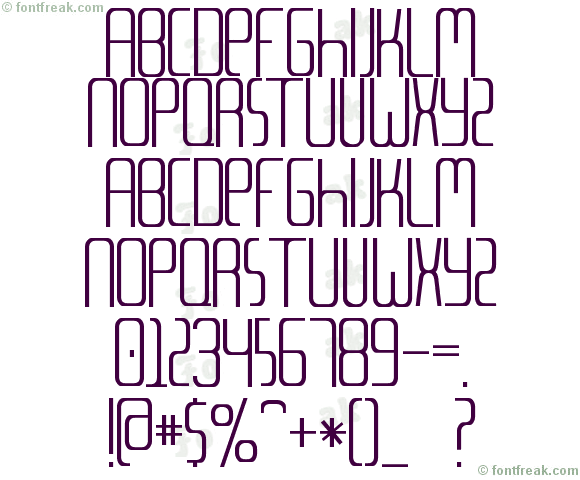
Meta Language
About Meta Language
Meta Language, designed by Divide By Zero, is a striking sans-serif font that combines modern aesthetics with functionality. Characterized by its clean lines and geometric shapes, this font offers a contemporary feel while maintaining legibility and versatility. The stroke weight is consistent, giving the typeface a stable and balanced appearance. The spacing between characters is thoughtfully crafted, ensuring that each letter stands out without overwhelming the reader. This makes Meta Language an excellent choice for various design applications.
Best suited for digital and print media, the Meta Language font is ideal for use cases such as website headers, marketing materials, and product packaging. Its modern look makes it particularly effective for tech startups and creative agencies seeking to convey innovation and clarity. Additionally, it can be used in editorial layouts, where a clean, professional appearance is essential, as well as in presentations that require a straightforward yet stylish typographic choice. Small business owners looking to establish a distinct brand identity will also find this font appealing, especially in signage and promotional materials.
Targeted towards graphic designers, content creators, and marketing professionals, Meta Language provides a versatile option that can adapt to various design needs. Its freeware licensing allows users to implement the font freely in their projects, making it accessible for both personal and commercial use.
What sets the Meta Language font apart is its unique blend of minimalism and functionality, making it a standout choice for contemporary design projects. With the Meta Language font free download available, users can easily incorporate this sophisticated typeface into their work, enhancing their visual communication while maintaining a modern edge.